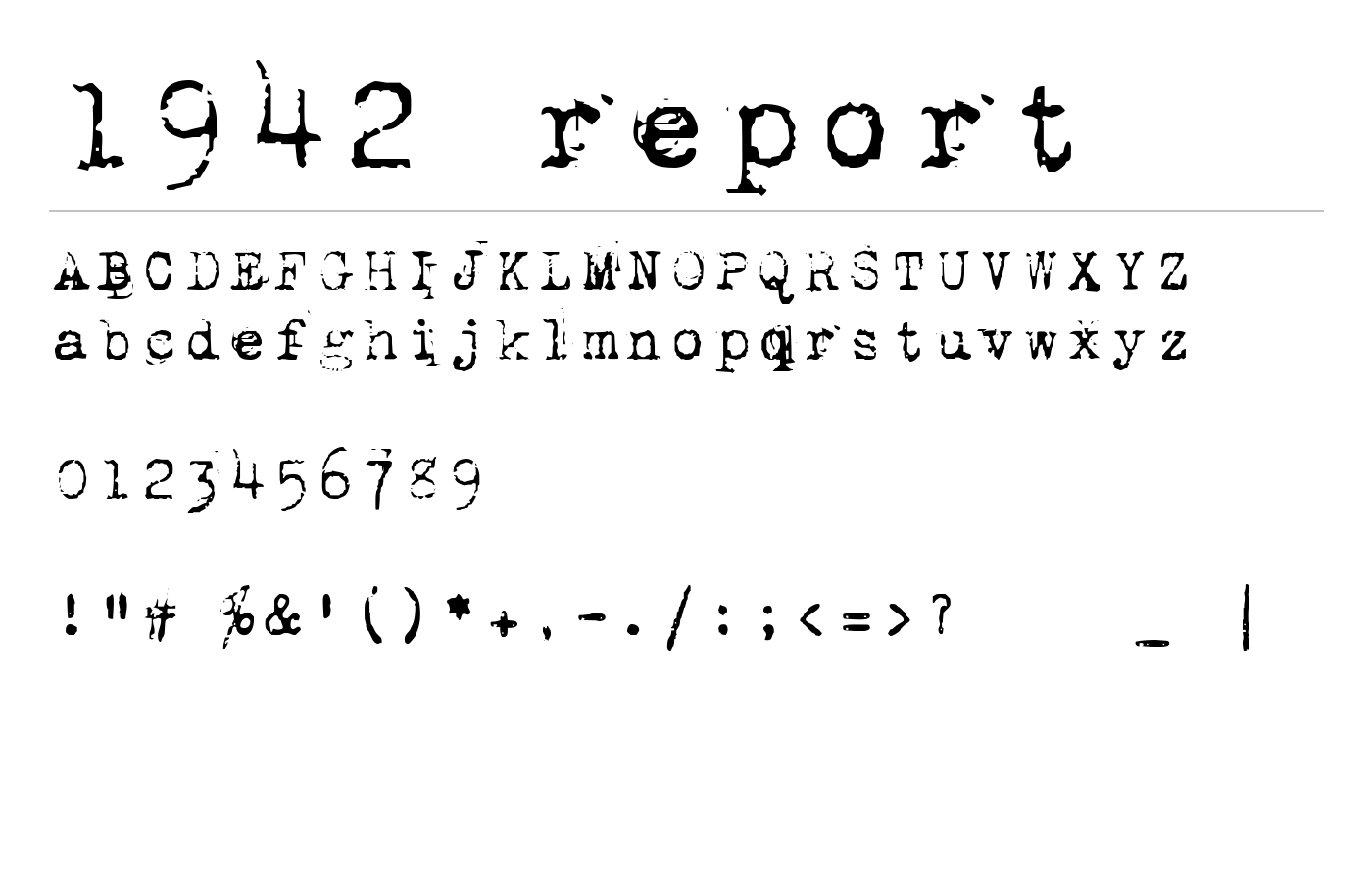
1942 Report is a distressed slab serif font that captures the look of vintage typewriter text with its rough, worn edges and uneven ink distribution. It has a strong, mechanical personality that conveys a sense of history, authenticity, and utilitarian purpose, making it ideal for designs seeking a retro, industrial, or documentary feel. This font works well for posters, editorial headlines, packaging, or creative projects that want to evoke nostalgia and rugged charm.
1942 report Font
About 1942 report Font